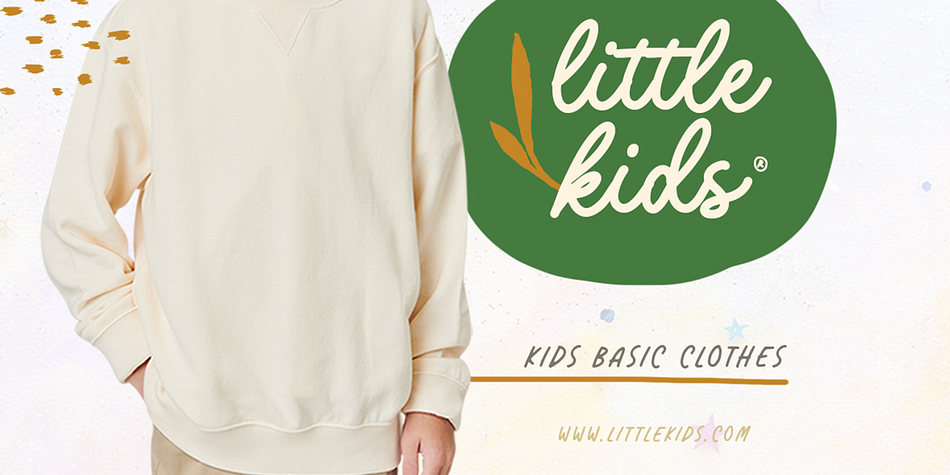
North Valley
Designed by Hendry Juanda, North Valley is a hand drawn and script font family. This typeface has two styles and was published by Letterhend Studio.
Introducing, North Valley - A cute display font duo. This font has two styles, sans and script. Both fonts are paired perfectly to used for casual and playful theme design. This font also perfectly made to be applied especially in logo, and the other various formal forms such as invitations, labels, logos, magazines, books, greeting / wedding cards, packaging, fashion, make up, stationery, novels, labels or any type of advertising purpose.
- Sans and Script
- uppercase and lowercase
- numbers and punctuation
- multilingual